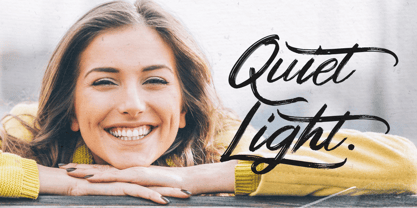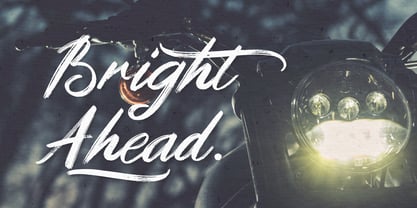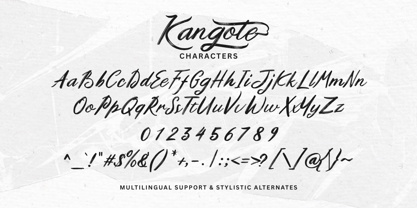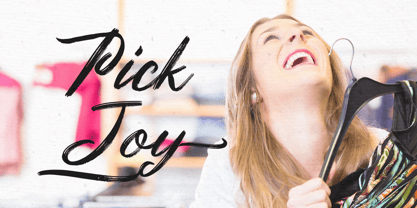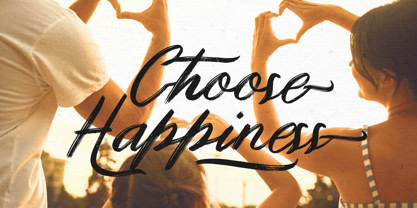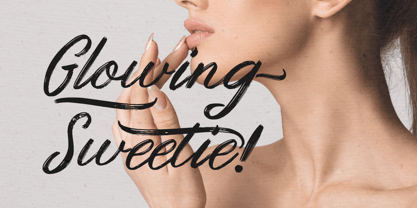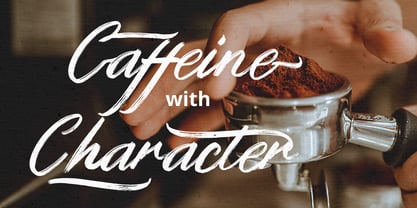
Kangote
by Gatype
The Kangote Font Family was designed by khaidir and published by Gatype. Kangote contains 1 styles. More about this family
Kangote Brush is textured brush font, contemporary approach to design, handmade natural with an irregular baseline. Kangote for use in title design. Such as apparel, invitations, books tittle, stationery design, quotes, branding, logos, greeting card, t-shirt, packaging design, poster and more. Kangote Brush includes a complete set of uppercase and lowercase letters, as well as multi-language support, numbers, punctuation, ligatures.